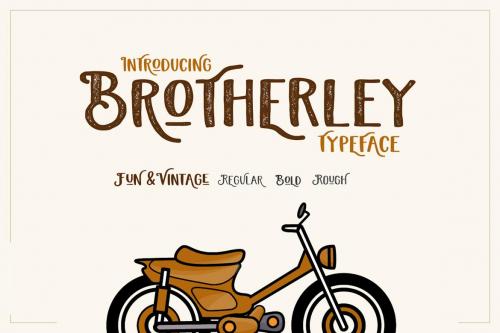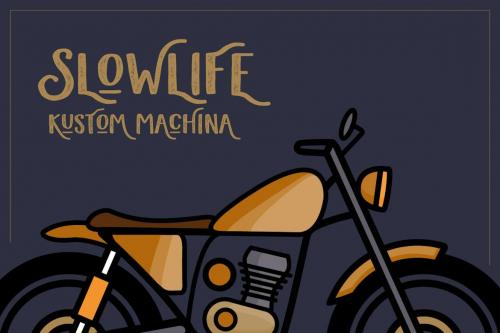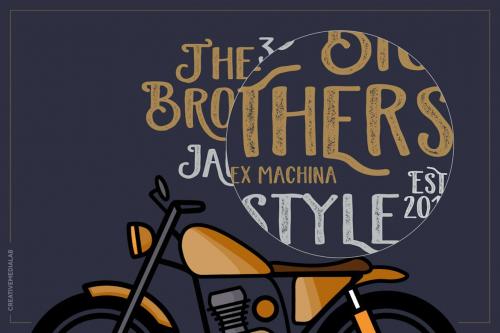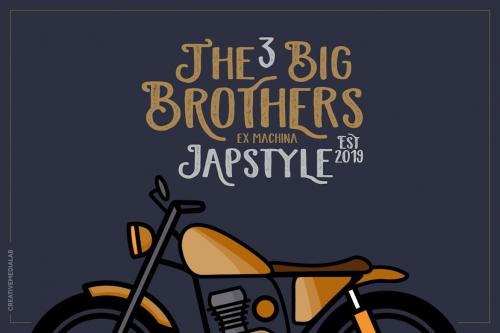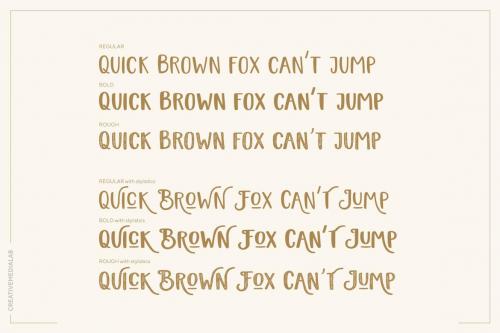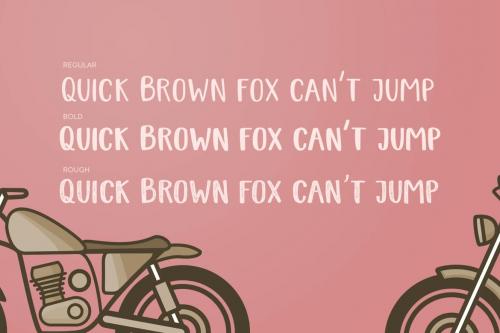
兄弟字体家族
Brotherley Font Family
Brotherley is a vintage font in a modern style. Including stylistic features on some characters that can be adjusted to the sentence in your design. consists of 3 types, regular, bold and rough style. Different with other vintage fonts in general, Brotherley also suitable for Kid tshirt designs, posters, logos, and much more. Brotherley is perfect for those who need vintage fonts but with different styles, fun and not too stiff. thanks for visit, please check our others items
Brotherley is a vintage font in a modern style. Including stylistic features on some characters that can be adjusted to the sentence in your design.
consists of 3 types, regular, bold and rough style.
Different with other vintage fonts in general, Brotherley also suitable for Kid tshirt designs, posters, logos, and much more.
Brotherley is perfect for those who need vintage fonts but with different styles, fun and not too stiff.